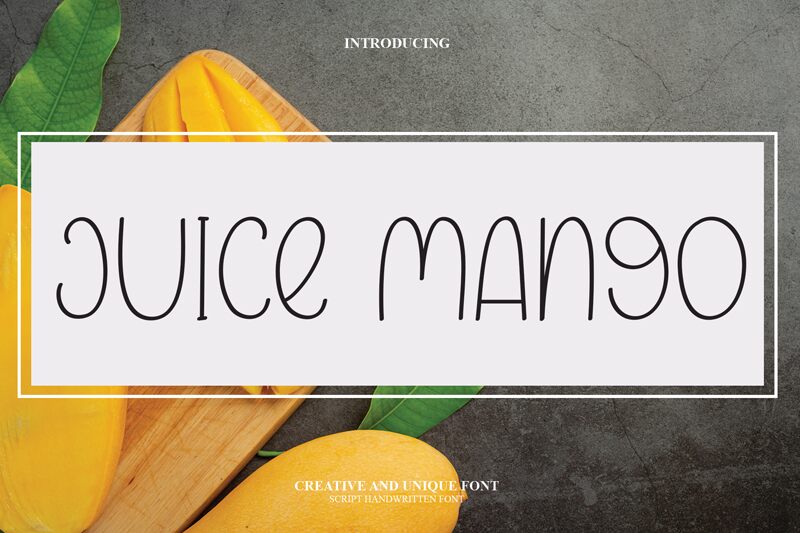
Juice Mango
Juice Mango, the latest creation by Belina Studio, is a delightful and playful handwritten font that adds a touch of whimsy to any design project. Its light weight and semi-condensed width make it perfect for creating eye-catching headlines, titles, and logos that demand attention. This font is suitable for a variety of projects ranging from branding and packaging design to social media graphics and invitations. Whether you're looking to add a touch of personality to your next project or want to create something truly unique, Juice Mango is the perfect choice for any creative endeavor.
the latest style letters are perfect for wall displays, wedding invitations, social media post logos, advertisements, product packaging, product designs, labels, photography, watermarks, invitations, stationery, and any project that requires taste handwriting.